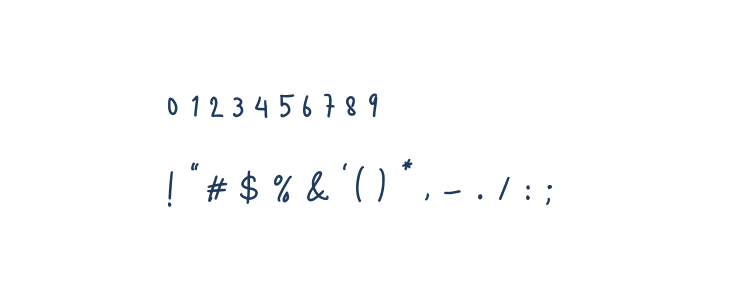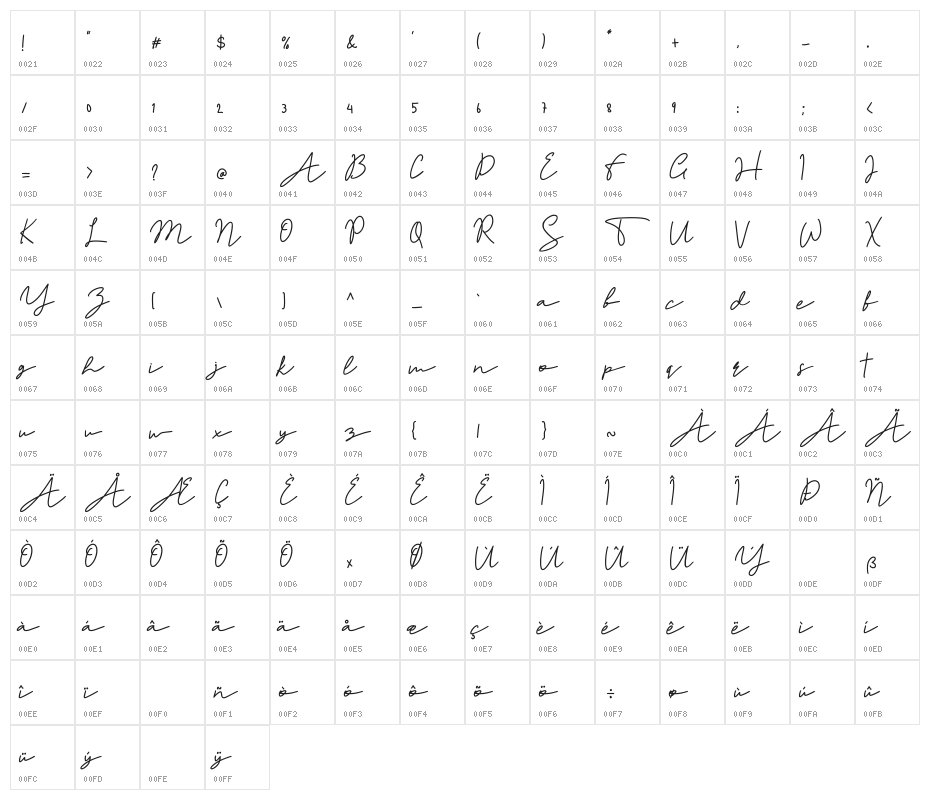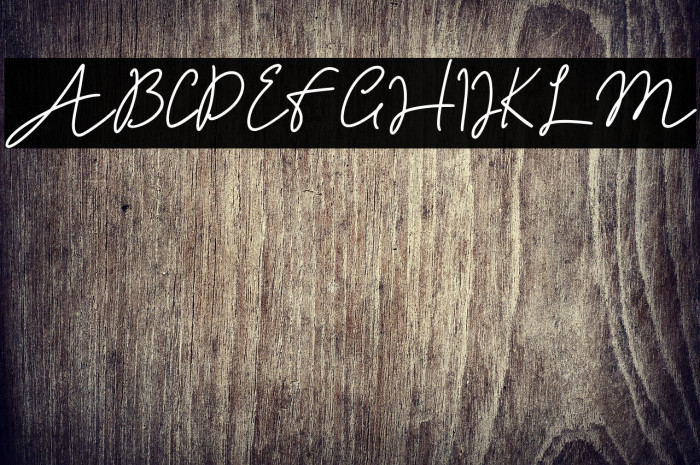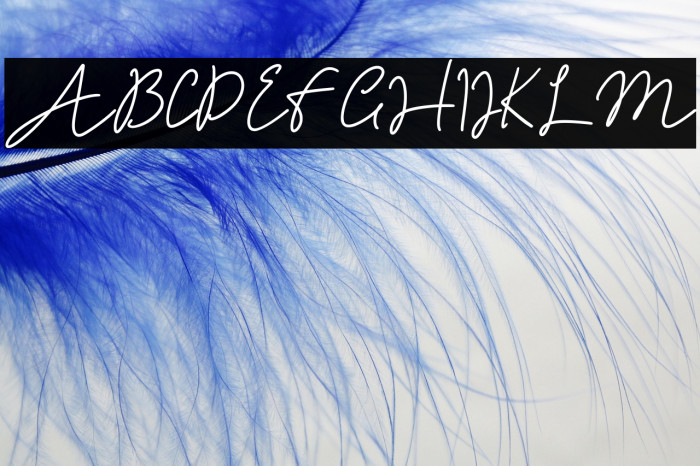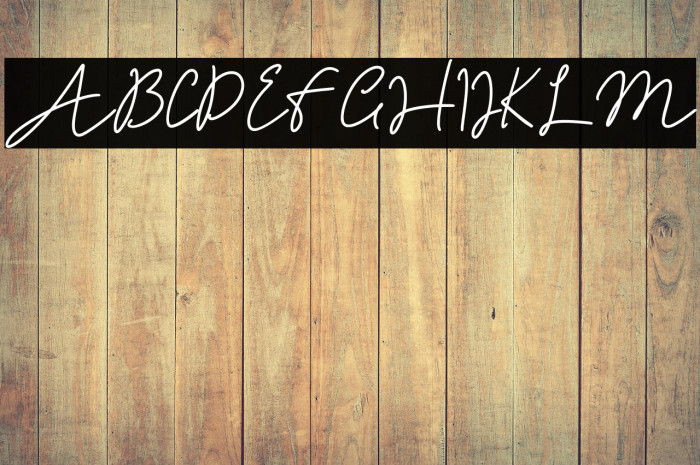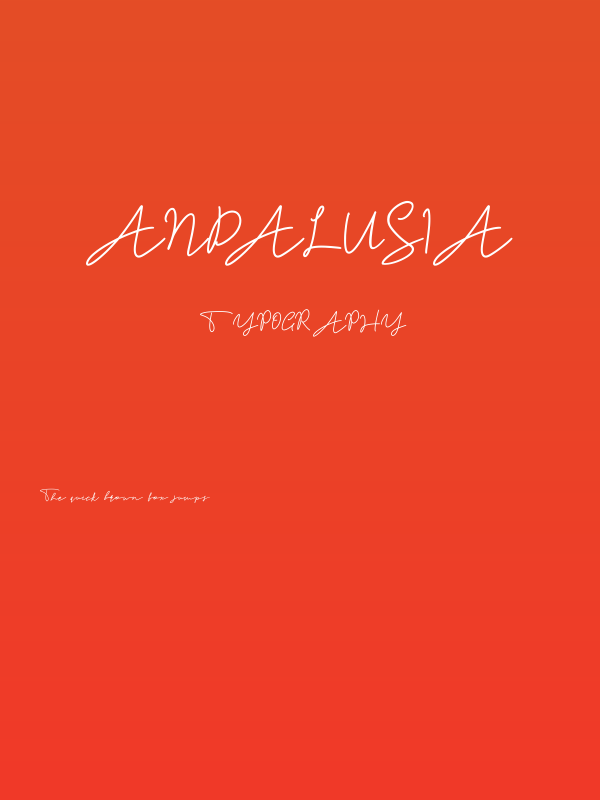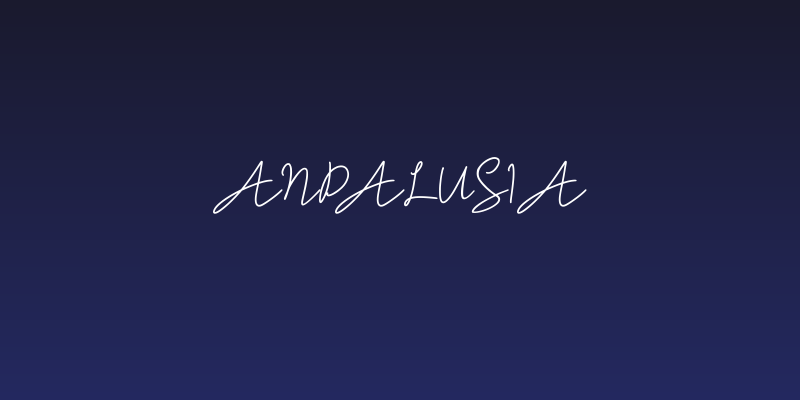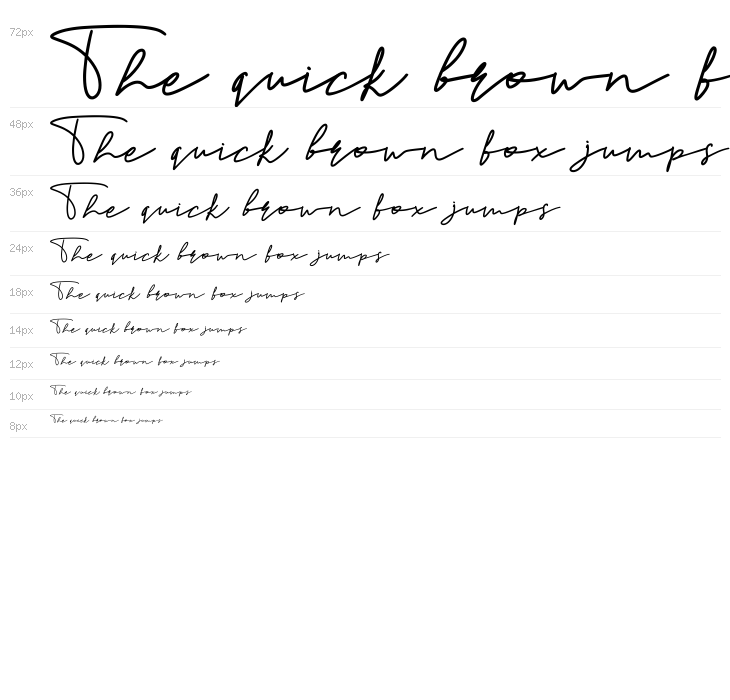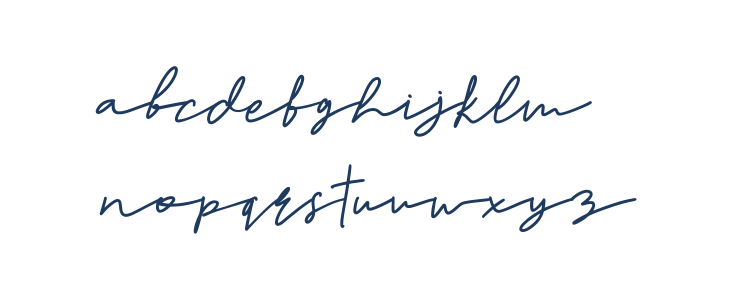
Andalusia Font
Andalusia Description
This font exudes a casual elegance with its handwritten script style. The letters are fluid and connected, giving it a natural, flowing appearance. The uppercase letters are slightly larger and more pronounced, while the lowercase letters maintain a consistent baseline, enhancing readability. The numbers and special characters are crafted with the same smooth, cursive strokes, ensuring a cohesive look across all characters. This font is perfect for projects that require a personal touch, such as invitations, greeting cards, or branding materials. Its stylish and modern aesthetic makes it versatile for various design needs.
| Proposed Projects | Ideal for invitations, greeting cards, branding, and personal projects. |